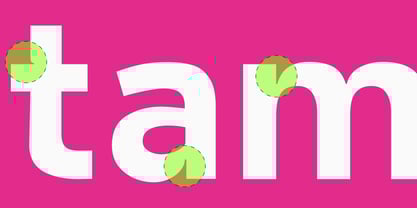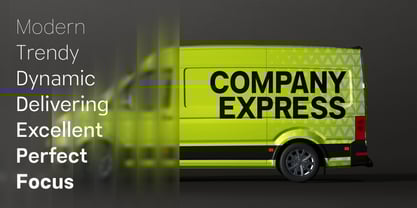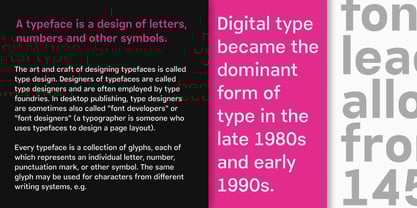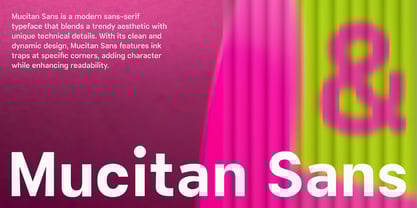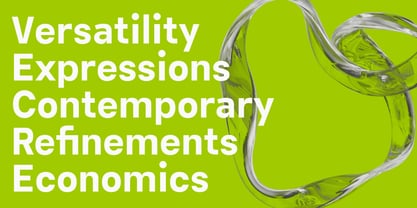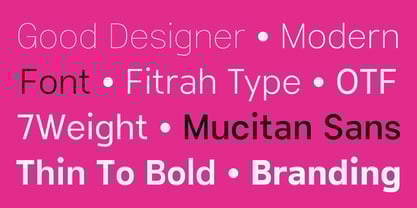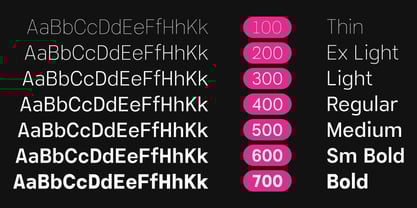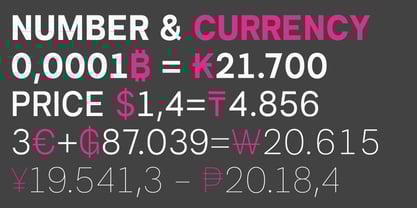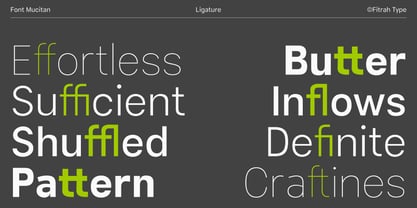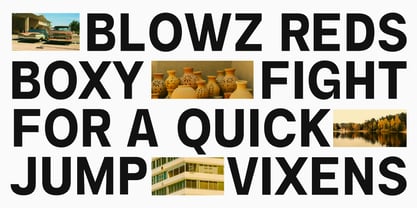
Mucitan Sans Variable
by Fitrah Type
The Mucitan Sans Variable Font Family was designed by Moch Fitrah Hidayat and published by Fitrah Type. Mucitan Sans Variable contains 1 styles.
Mucitan Sans is a modern sans-serif typeface that blends a trendy aesthetic with unique technical details. With its clean and dynamic design, Mucitan Sans features ink traps at specific corners, adding character while enhancing readability. Mucitan Sans brings a professional and contemporary feel to any design. Every weight is optimized for clarity and readability.
Features:
• 7 weights from Thin to Bold
• Modern stylistic alternates and symbols
• Multilingual support
• Optimized kerning and spacing
Elevate your visual projects with Mucitan Sans — a clean, elegant, and flexible typeface made for the designs of today and tomorrow.